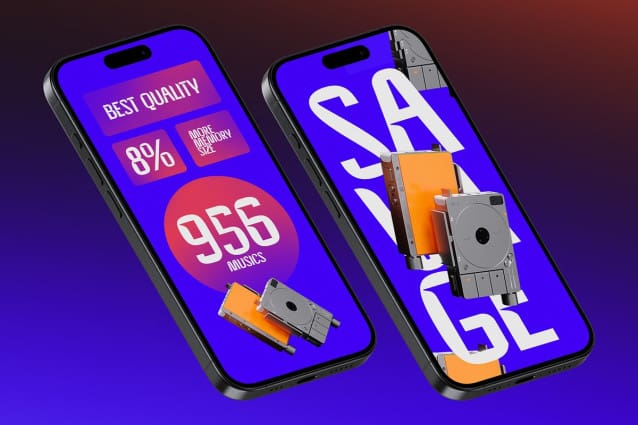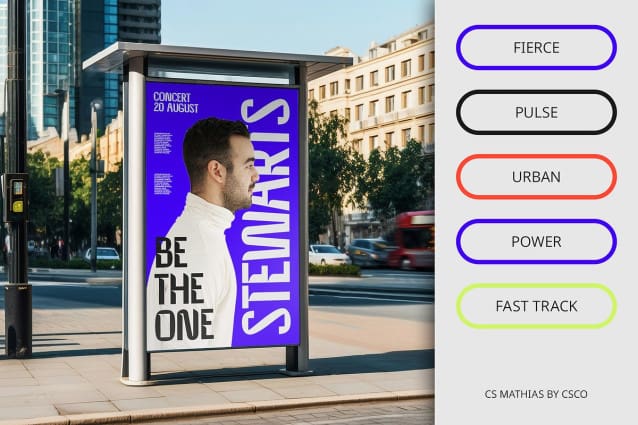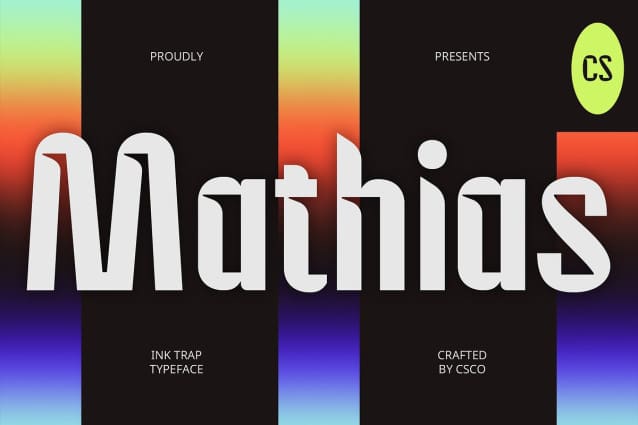
CS Mathias Font
CS Mathias Font is a contemporary sans serif font that expertly incorporates inktrap details, resulting in a sleek and functional design. The clean, sharp letterforms, combined with open angles—particularly at the ends of certain characters—create a modern, professional look that stands out in any setting. The inktrap effect optimizes readability, especially in small sizes or bold prints, by minimizing ink bleed and ensuring crisp, clear text in various applications.
Enhanced Legibility for Professional Designs The inktrap effect in CS Mathias improves the legibility of text, particularly in bold or reduced sizes, by refining the stroke width where ink may otherwise bleed. This makes it ideal for a range of professional and commercial applications, where clarity is essential. Whether used in print or digital media, the refined design ensures that the font remains easily readable and visually appealing, even in challenging conditions.
Functional and Contemporary Appeal With its precise, functional structure and modern aesthetic, CS Mathias is perfect for projects that require a contemporary look with enhanced readability. The font’s sleek design is well-suited for branding, web design, corporate identities, and any design project that prioritizes both style and clarity. Its open forms and clean lines make it a versatile choice for conveying professionalism and modernity.